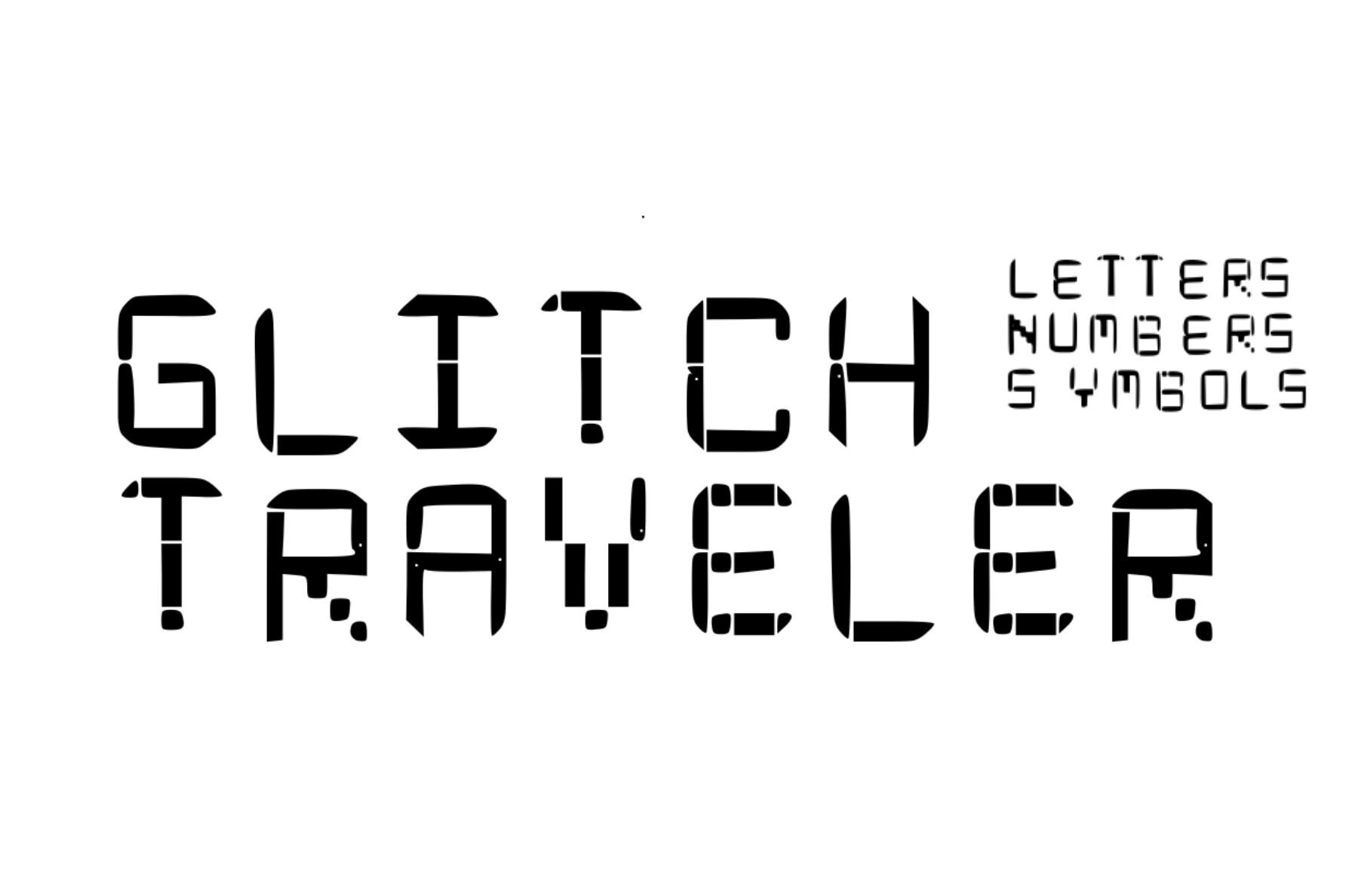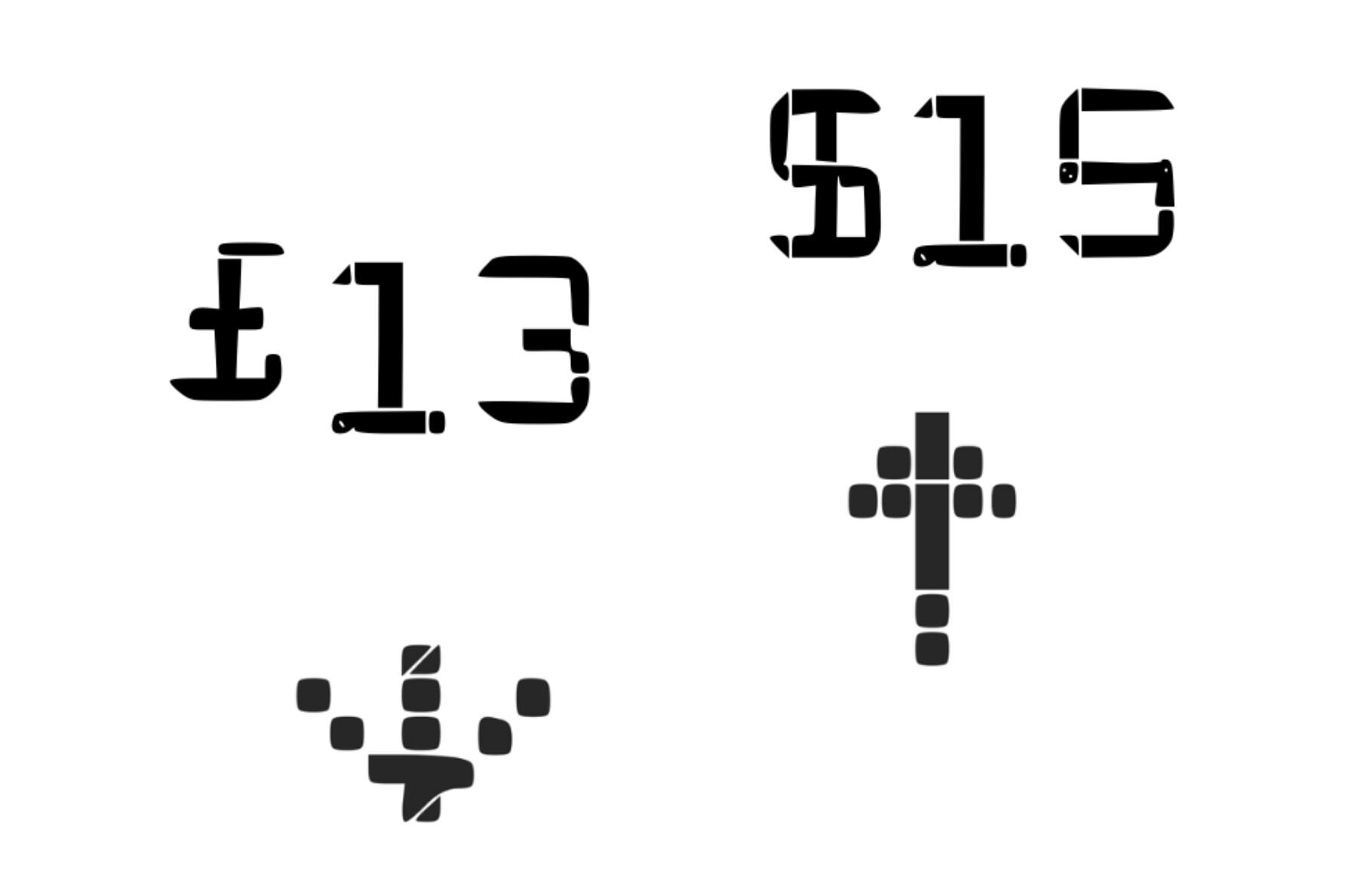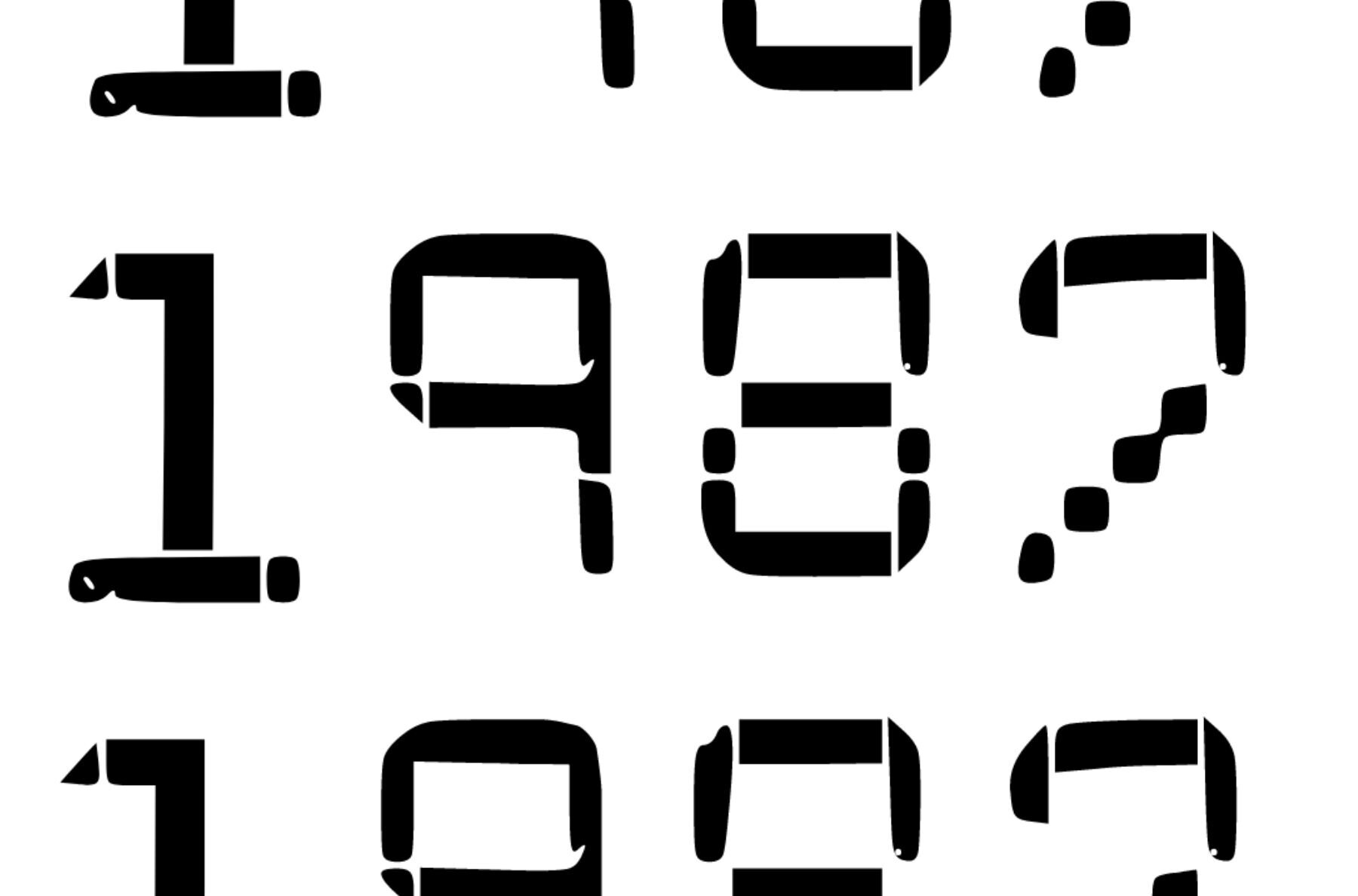
Glitch Traveler Font
Glitch Traveler
Glitch Traveler captures the essence of digital information boards with a contemporary twist, offering a unique design that stands out in any project. Drawing from the matrix lettering system, this font introduces an edgy glitch effect, perfect for infusing a modern, tech-savvy vibe into your work. Whether you're working on a digital interface, a cutting-edge poster, or an innovative branding project, Glitch Traveler provides the tools you need to push creative boundaries.Glitch Traveler: A Modern Take on Matrix Lettering